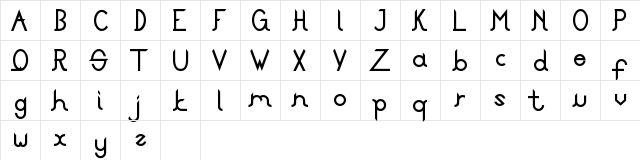
abdun Regular
| Designer | rajman |
Design Context for abdun Typeface
abdun takes a measured approach to typography — its balanced proportions and neutral character make it a reliable workhorse for both digital and print work.